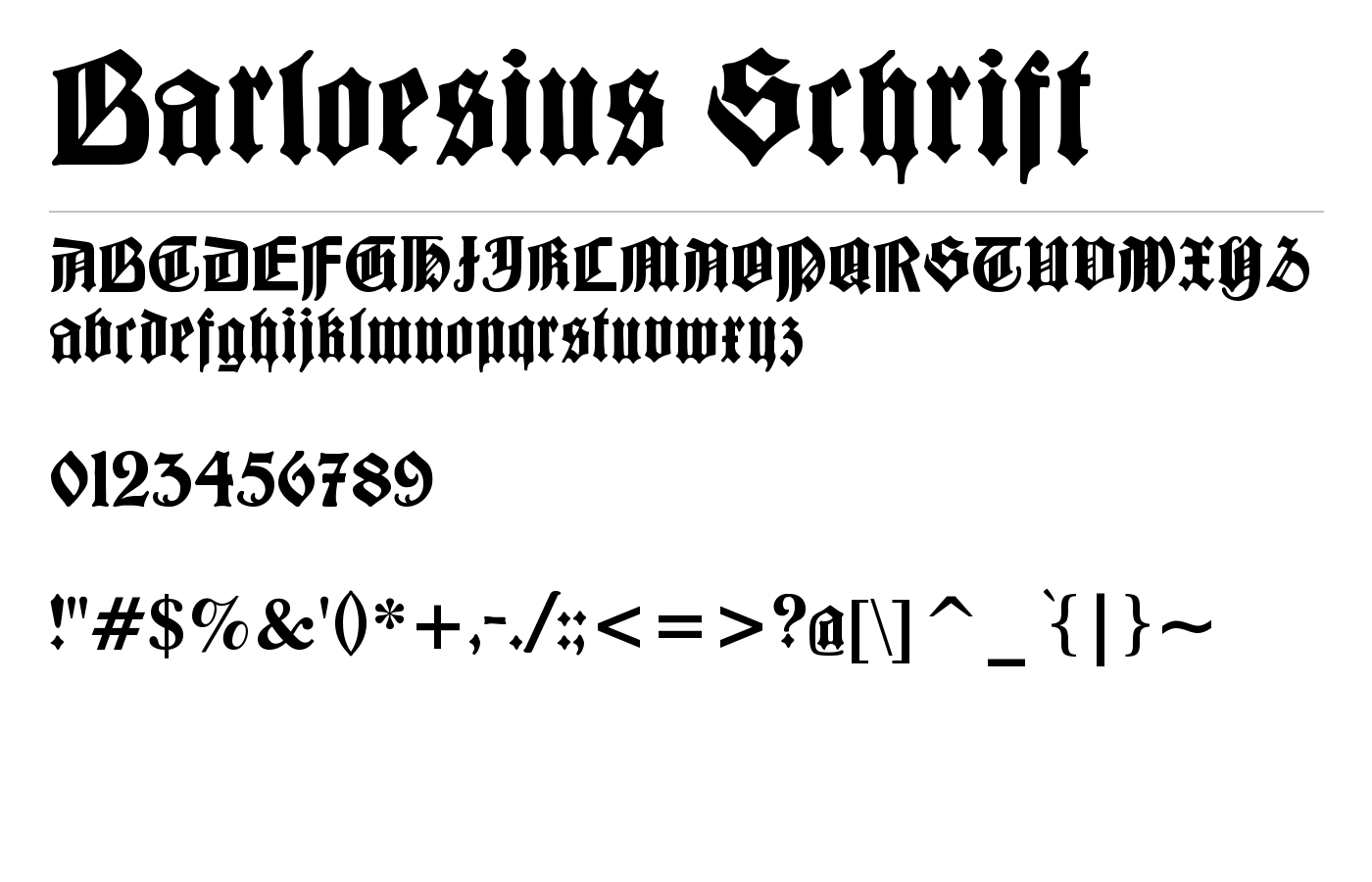
Barloesius Schrift is a bold blackletter font characterized by its heavy weight, sharp angular strokes, and high contrast between thick and thin lines. Its intricate, traditional Gothic style with pointed serifs and dense letterforms makes it perfect for creating a dramatic, vintage, or medieval atmosphere. This font is best suited for logos, headlines, or decorative uses where a strong historic or old-world feel is desired.
Barloesius Schrift Font
About Barloesius Schrift Font
| Font family | Barloesius Schrift Font |
| Designer | Peter Wiegel |